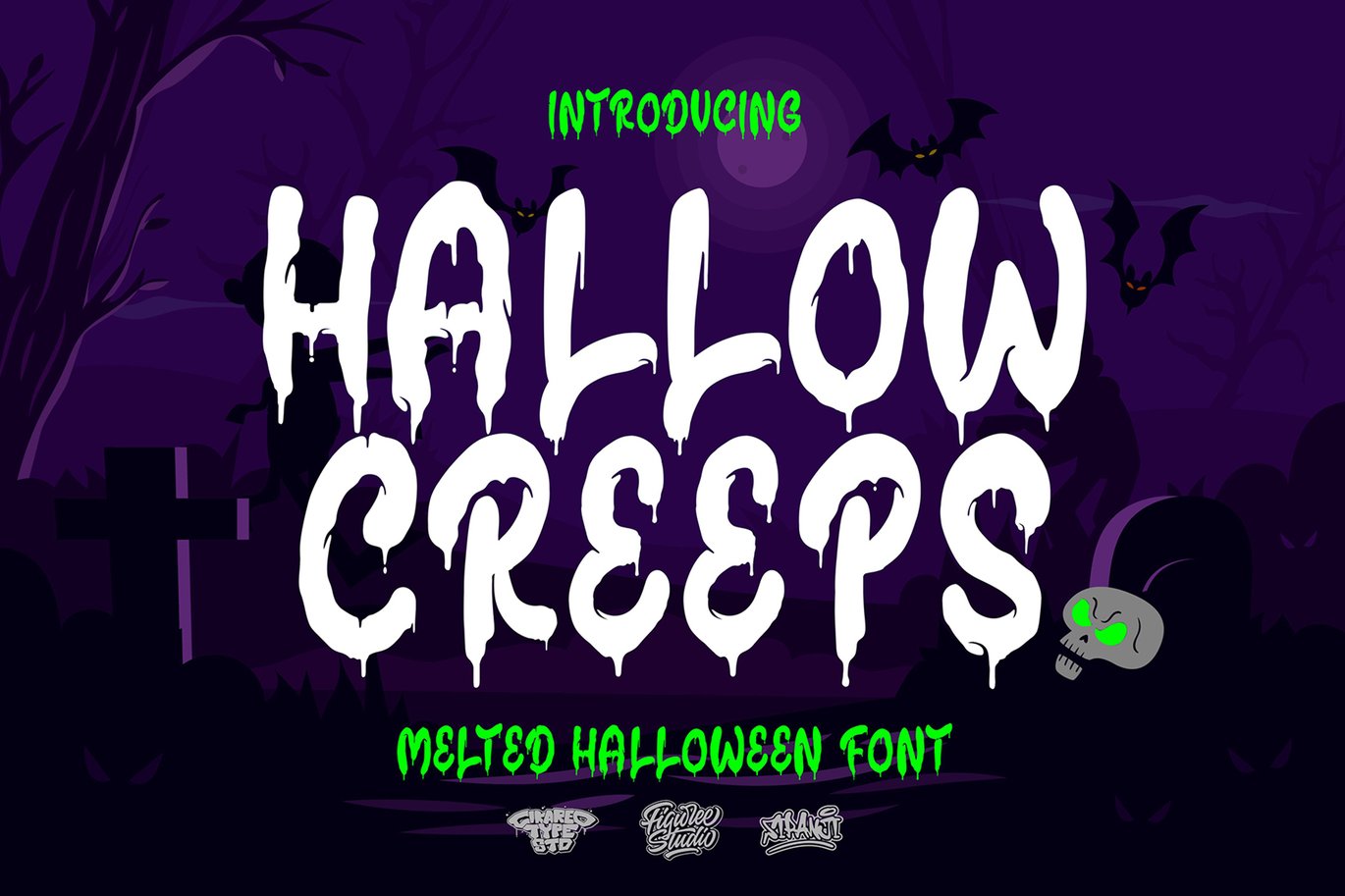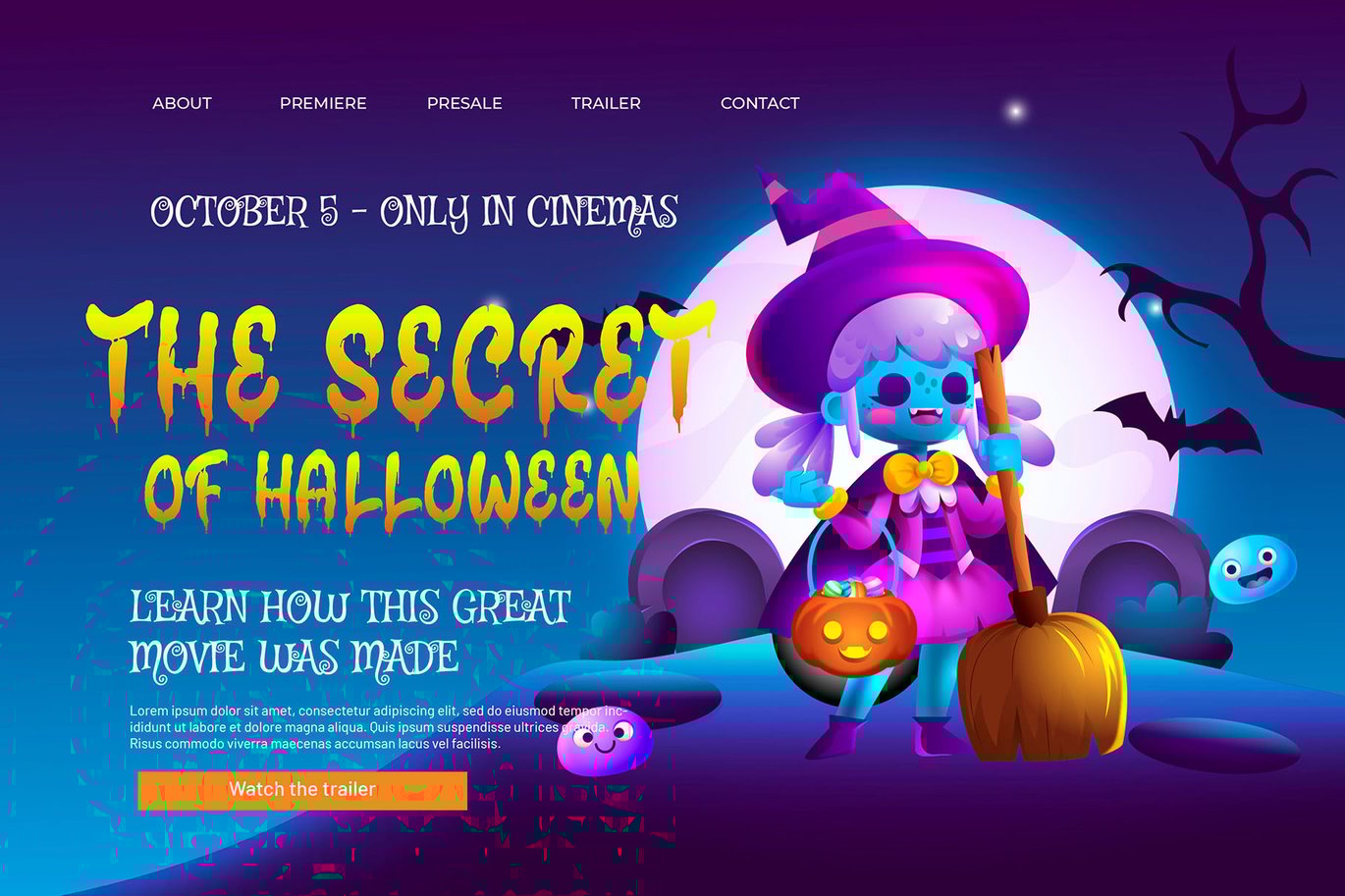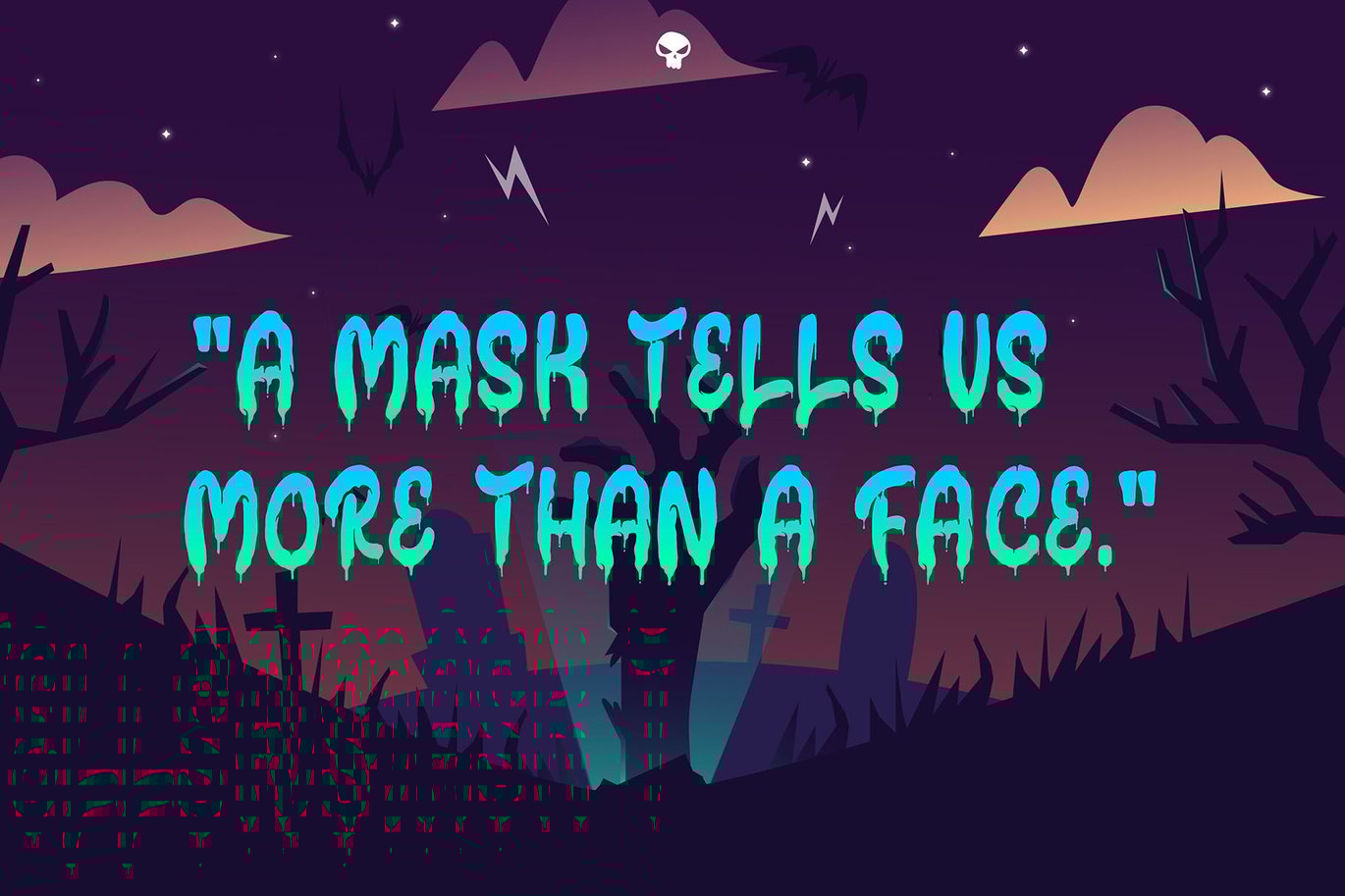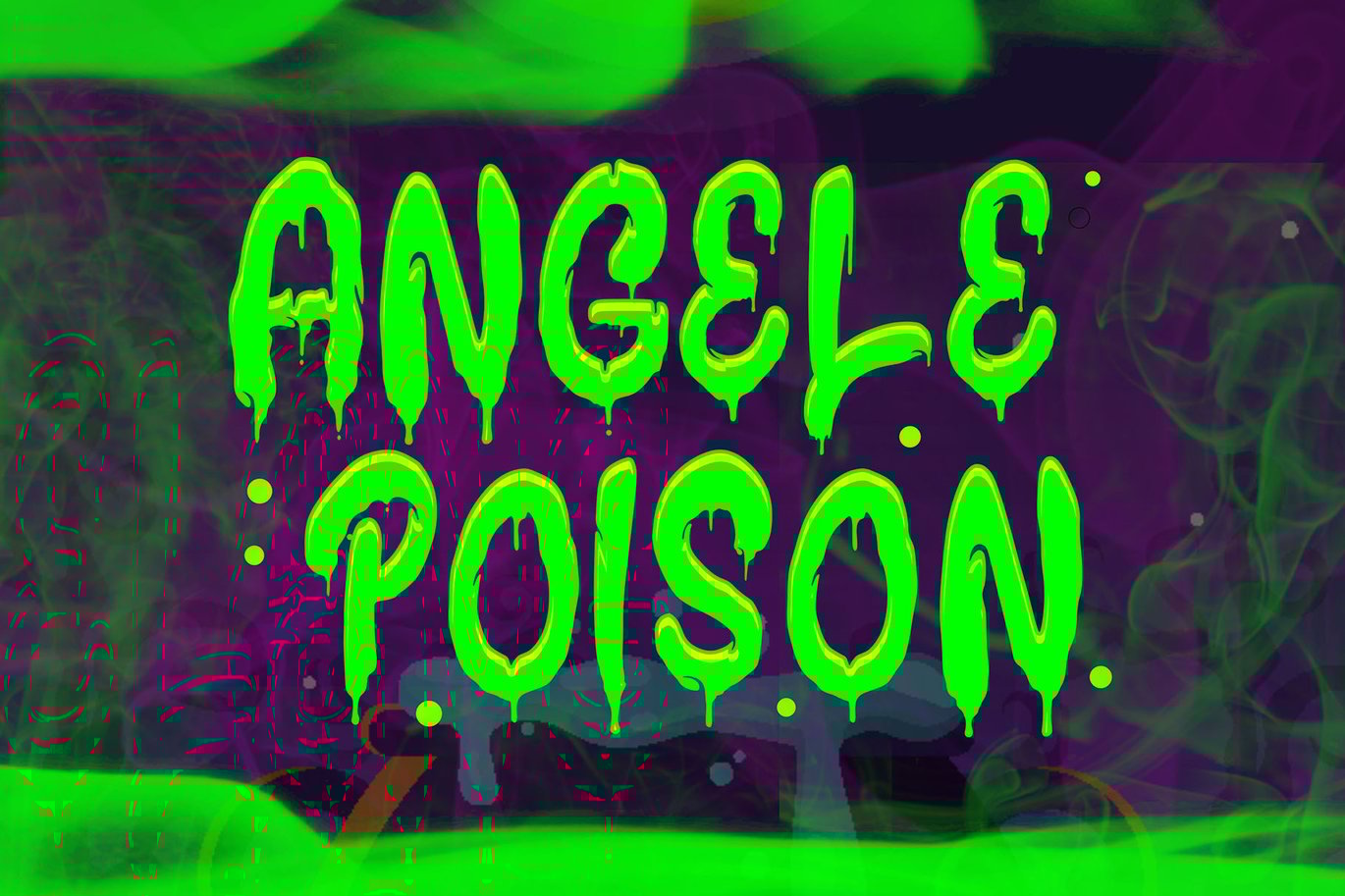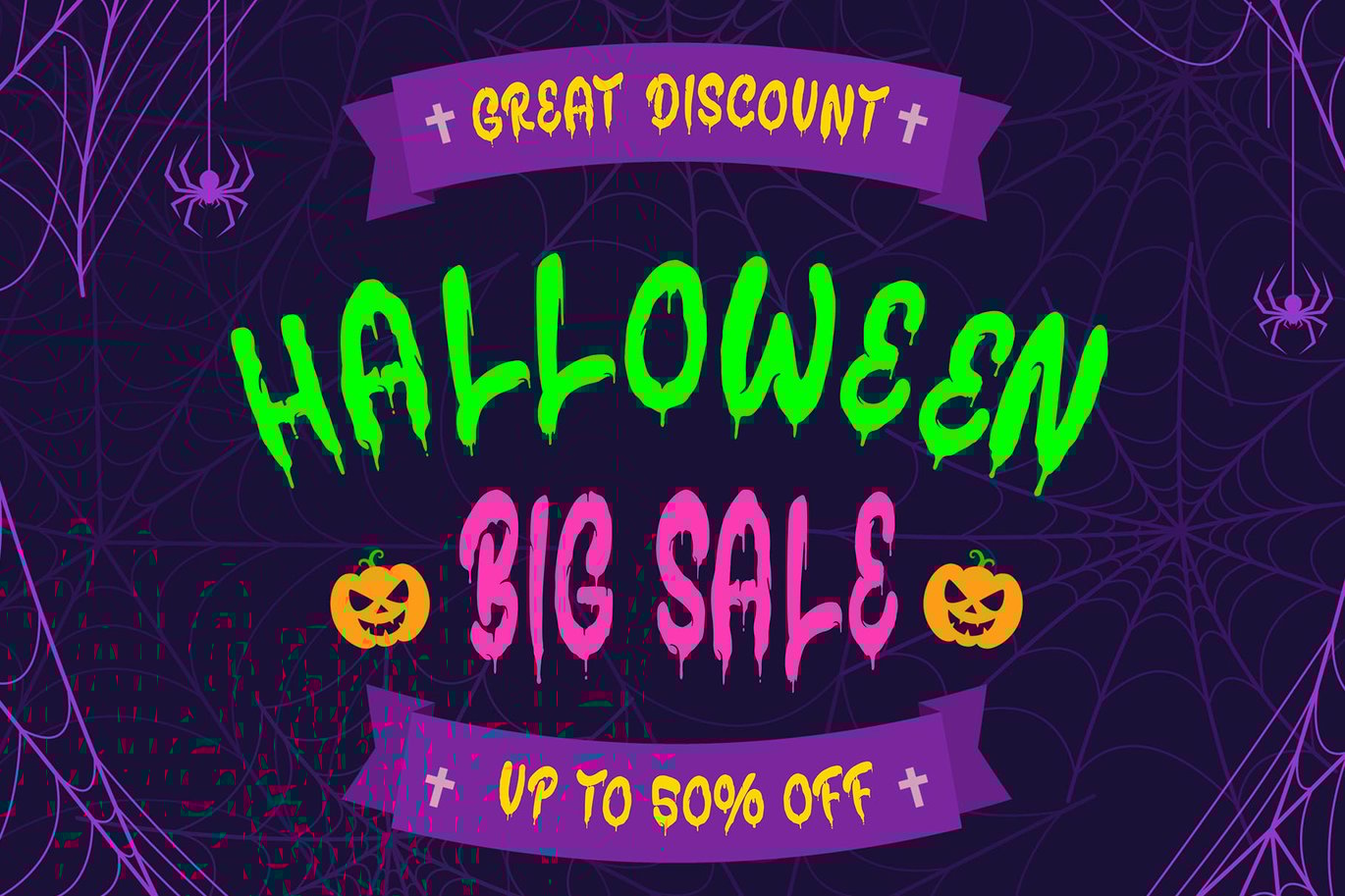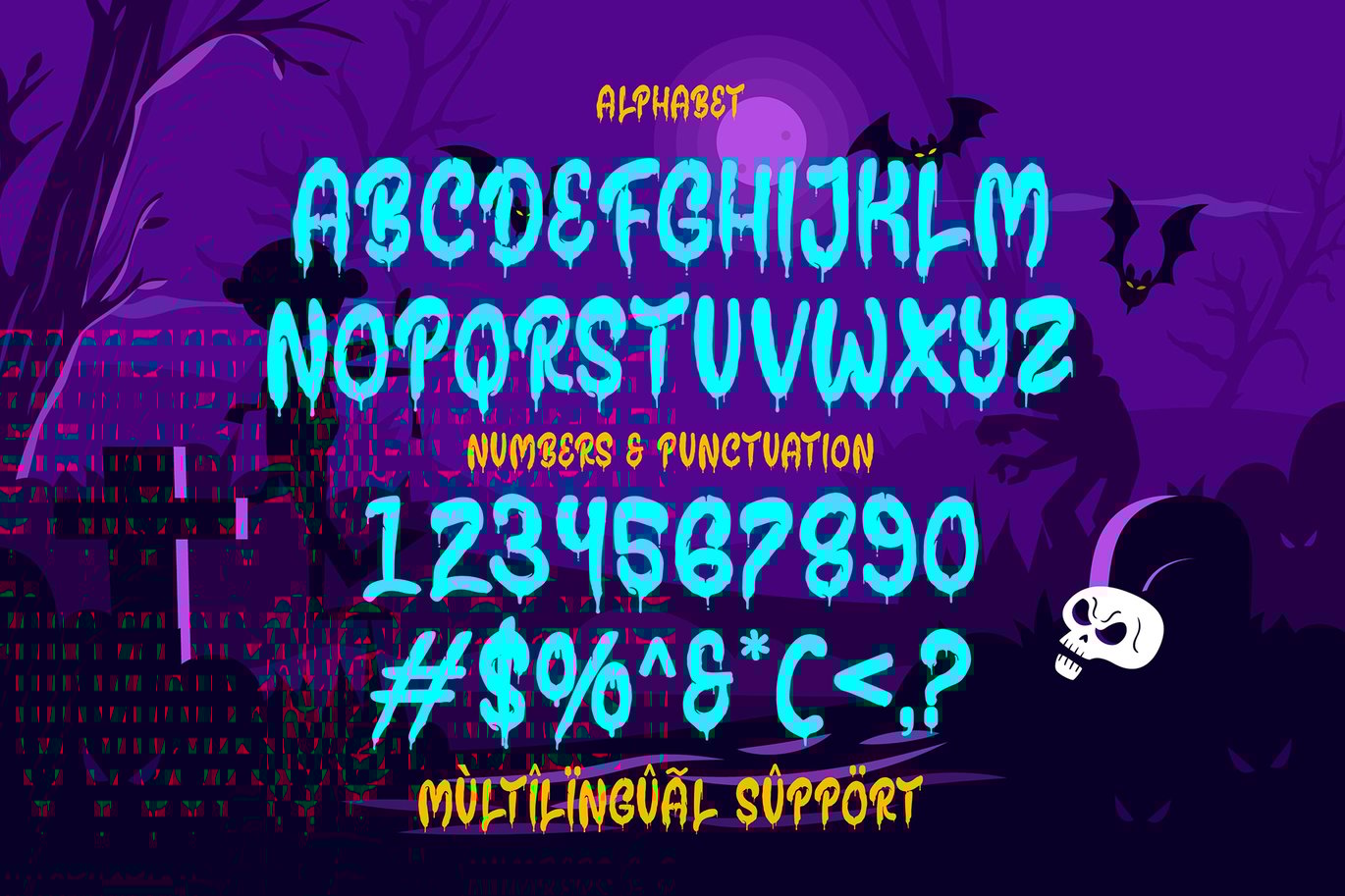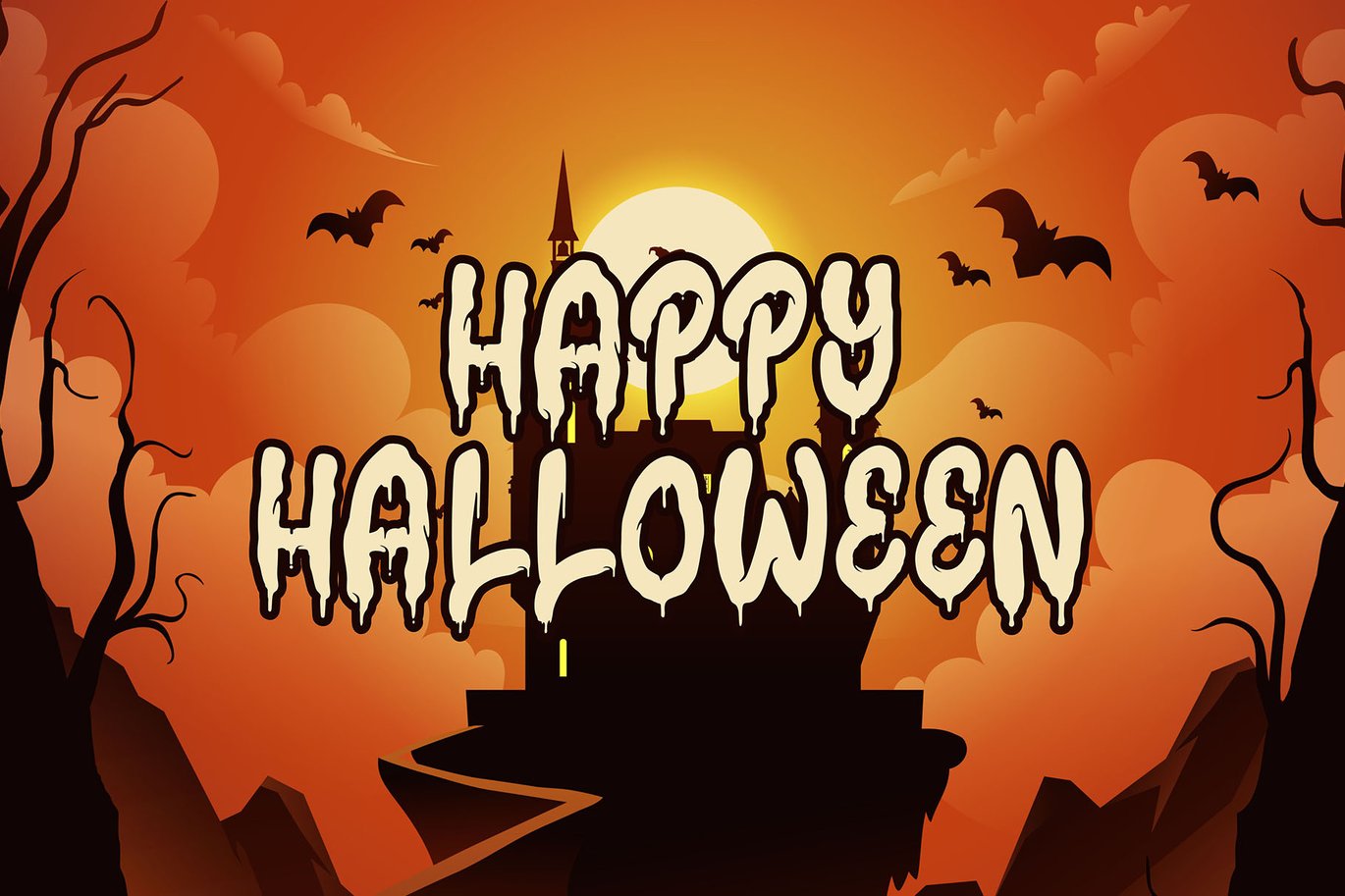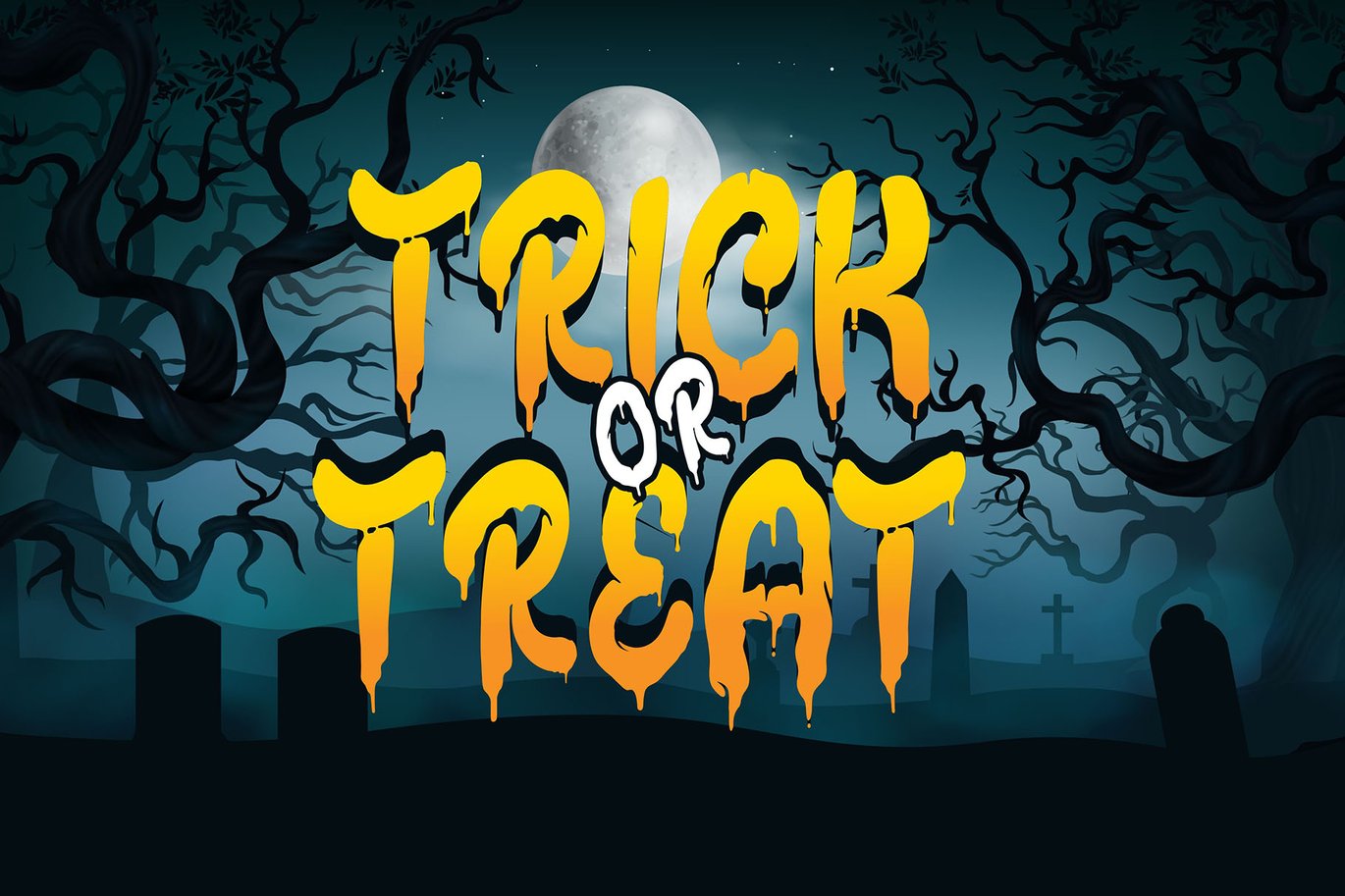
Hallow Creeps – Melted Halloween Font
Hallow Creeps is a delightfully spooky melted Halloween font that adds a spine-chilling twist to your seasonal designs. With letters seemingly oozing and dripping like molten slime, this font captures the eerie essence of Halloween in a playful and imaginative way. Perfect for haunted house flyers, ghostly party invitations, or wickedly fun social media posts, Hallow Creeps will leave a lasting impression on anyone who dares to read its chillingly gooey letters. Embrace the Halloween spirit and let Hallow Creeps bring a touch of ghoulish charm to your festive projects!